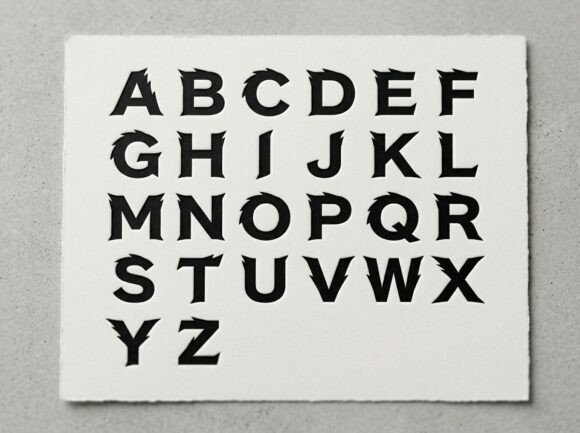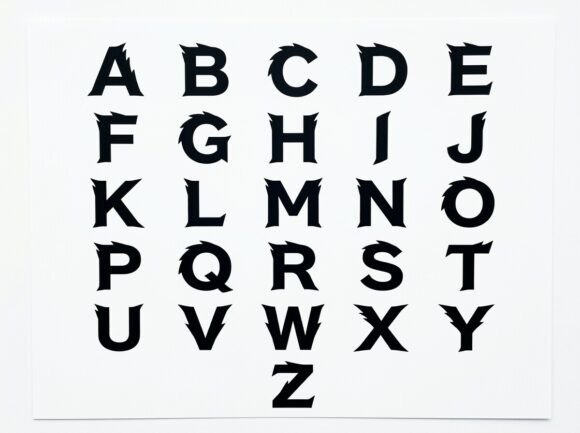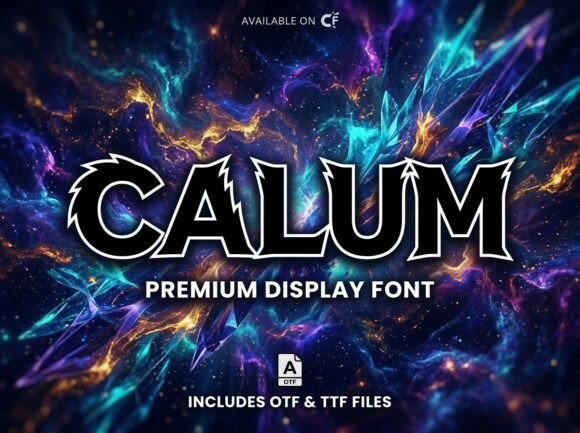
Introducing Calum Font: The Avant-Garde Decorative Display Font
Are you a creator looking for a font that makes a statement? Do you want to add a touch of luxury and sophistication to your designs? Look no further than Calum Font, the ultimate avant-garde decorative display font. Engineered to be the focal point of any composition, Calum Font is characterized by its commanding visual personality and unique artistic flourishes.
A Font that Refuses to Blend In
Calum Font is not just a font – it’s a work of art. Crafted for creators who refuse to blend in, this typeface is perfect for those who want to make a statement with their designs. With its strong, artistic soul and high-end, polished finish, Calum Font is suitable for a wide range of applications, from luxury packaging to experimental editorial layouts.
Ideal for High-Impact Designs
So, what can you use Calum Font for? The possibilities are endless! Here are some ideal use cases for this stunning font:
- High-impact headlines: Make a statement with your headlines using Calum Font’s bold and eye-catching design.
- Signature logos & branding: Create a lasting impression with your brand’s logo and visual identity.
- Conceptual packaging: Add a touch of luxury and sophistication to your product packaging.
- Poster & social media design: Stand out from the crowd with eye-catching posters and social media graphics.
A Note on Font Style
Please note that Calum Font is an all-caps (uppercase only) display typeface. By omitting lowercase characters, the designer has focused entirely on the intricate craftsmanship of every individual letter, ensuring each one acts as a standalone work of art.
Why Choose Calum Font?
So, why choose Calum Font over other fonts? Here are just a few reasons:
- Unique and eye-catching design: Calum Font is sure to grab attention and make your designs stand out.
- High-end and polished finish: Add a touch of luxury and sophistication to your designs.
- Versatile: Suitable for a wide range of applications, from packaging to editorial layouts.
In conclusion, Calum Font is the perfect choice for creators who want to make a statement with their designs. With its unique and eye-catching design, high-end finish, and versatility, this avant-garde decorative display font is sure to elevate your designs to the next level. So why wait? Get your hands on Calum Font today and start creating stunning designs that demand attention!